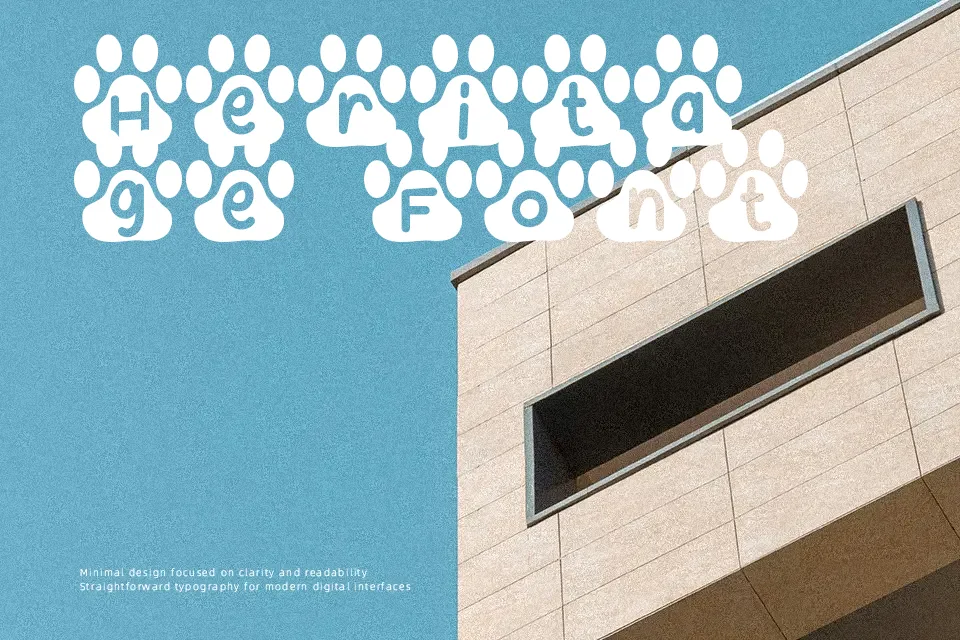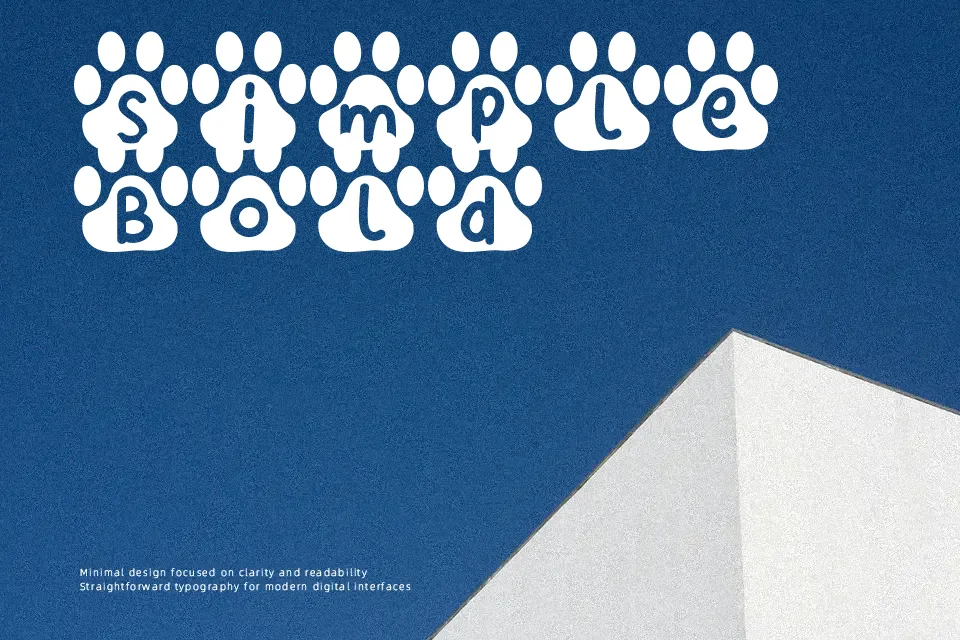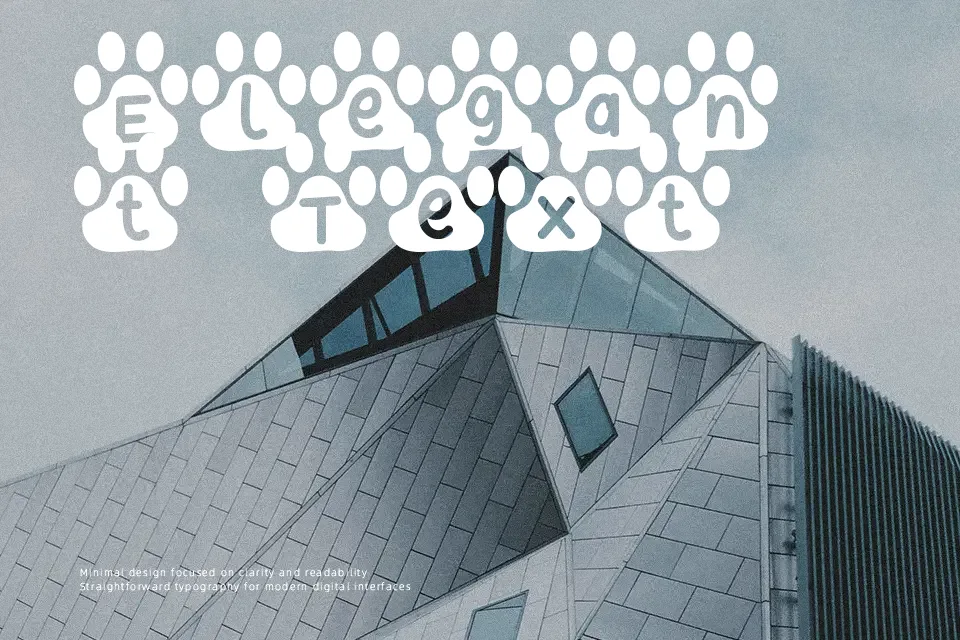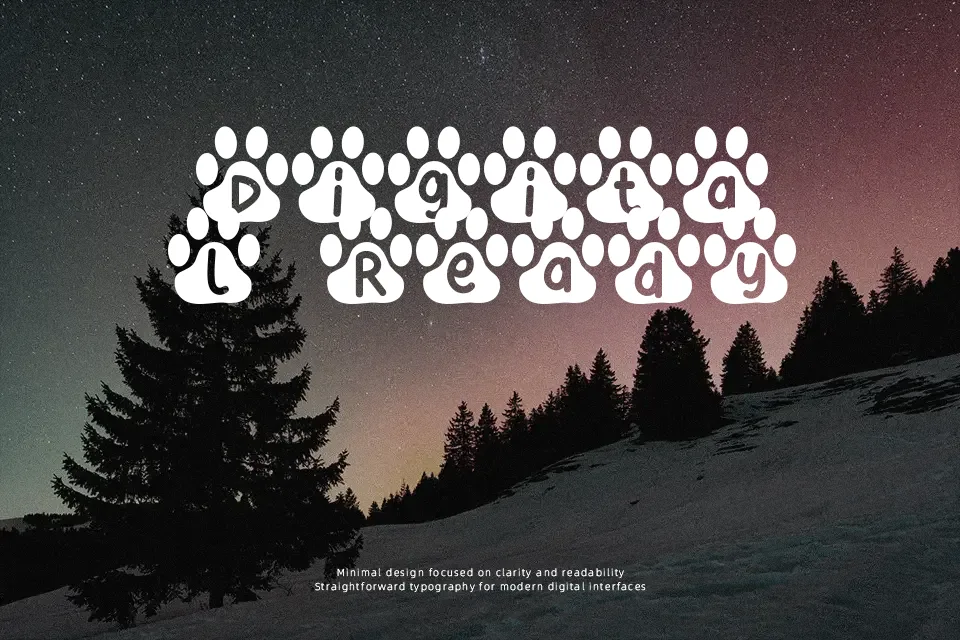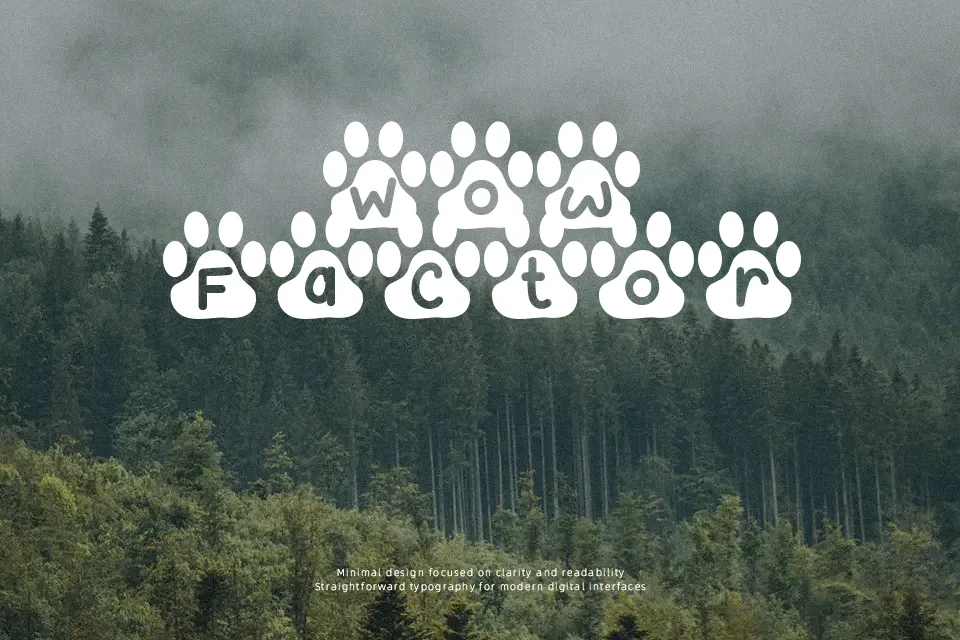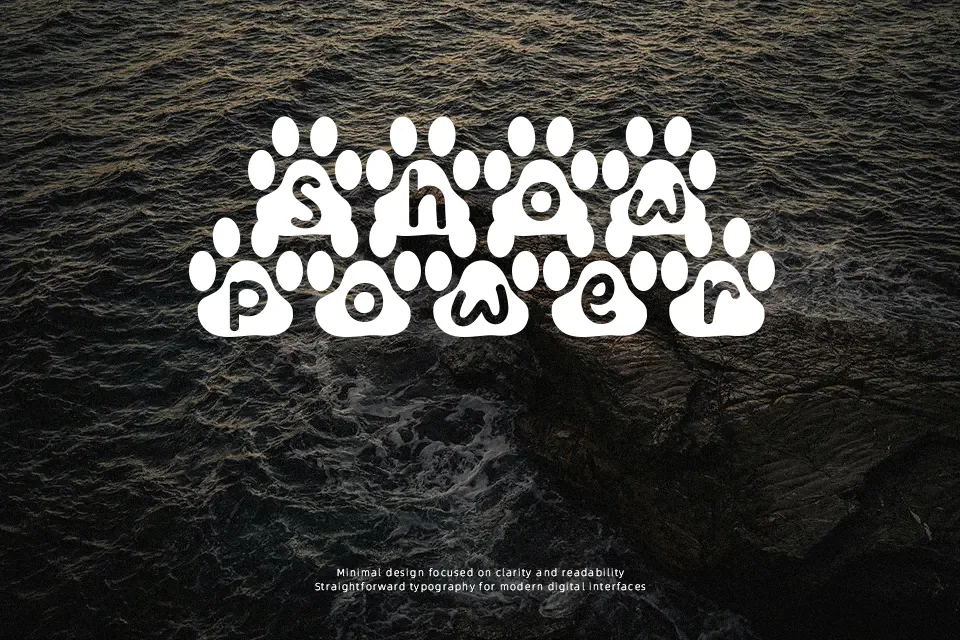
Kitty Paw Font
Soft, rounded strokes combined with tiny paw-print details give this font an instantly recognizable animal theme. The letterforms lean toward a decorative display style, with uneven spacing and playful shapes that prioritize charm over precision. It suits pet-related designs like grooming shop signage, cat café menus, or children’s event posters where personality matters more than readability. However, the novelty elements can feel repetitive in longer text and may reduce clarity at small sizes. It performs best in short headlines or logos, but struggles in body text or more formal branding contexts.
– pet shop logos
– kids party invitations
– social media graphics for animal content
– playful merchandise designs
– long paragraph text
– corporate branding materials
– small-size readability
– formal documents
Perfect for kids, logo, and poster, with a cute and decorative style.